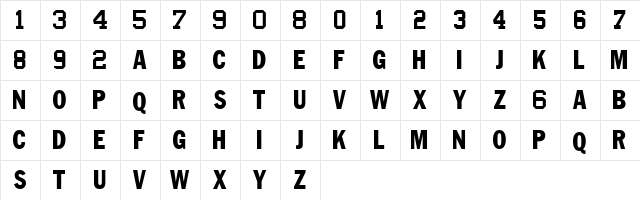
NFL Varsity Block E Regular
Design Context for NFL Varsity Block E Typeface
NFL Varsity Block E brings high-energy athletic personality to the page — its confident, muscular forms are built for impact.
A natural choice for gym brands, fantasy sports, jersey lettering, and action-driven headlines.
Pro Tip: Use NFL Varsity Block E in all-caps headlines where its athletic energy can fully express itself. Pair with a solid, simple sans for supporting text.